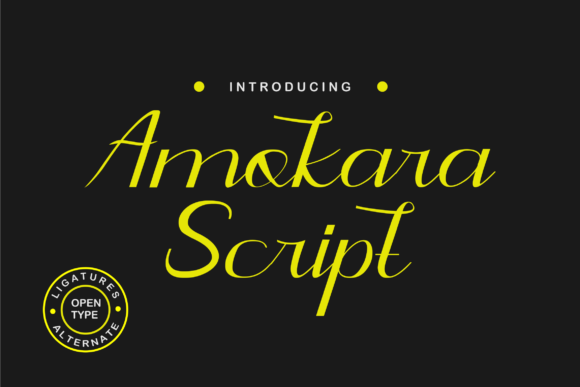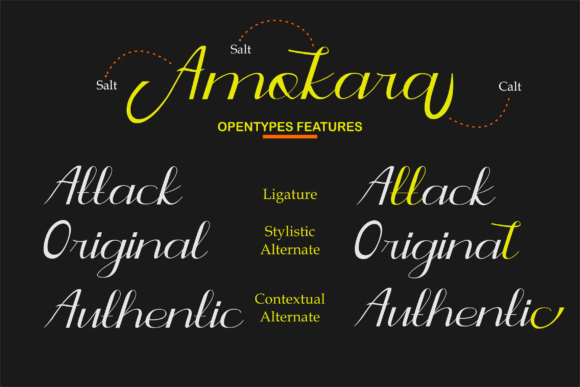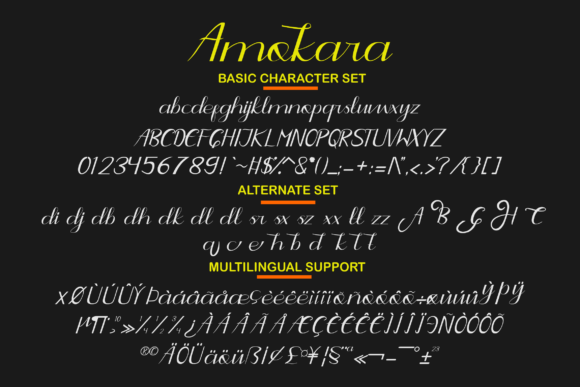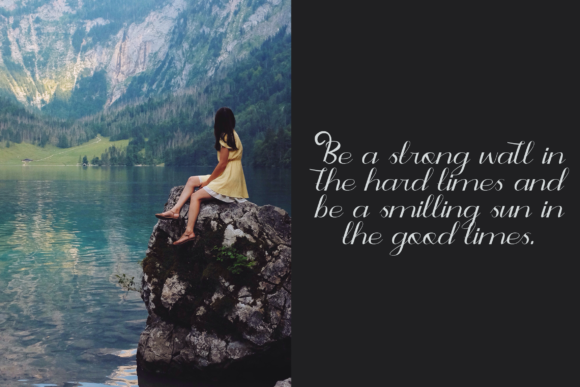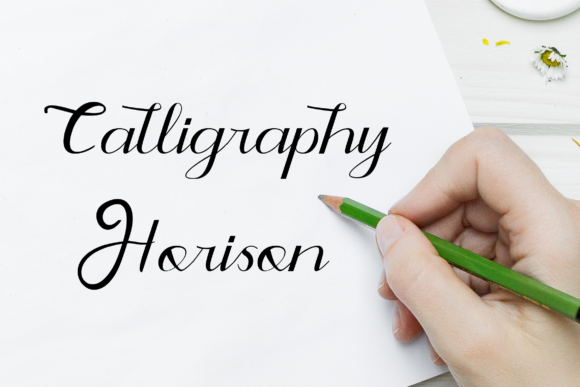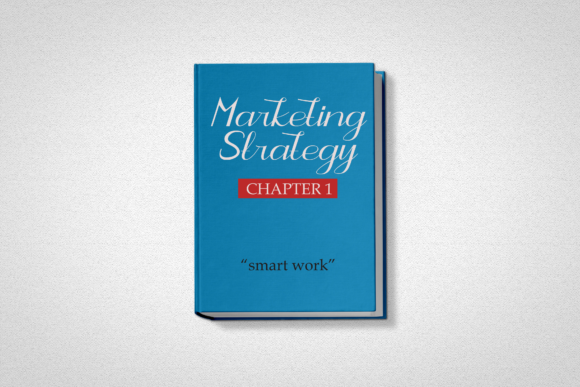
HomeScript FontsAmokara Script Font Script Fonts Amokara Script Font FacebookXPinterestWhatsApp Amokara Script Font Poster 2 Amokara Script Font Poster 3 Amokara Script Font Poster 4 Amokara Script Font Poster 5 Amokara Script Font Poster 6 About Amokara Script Font Amokara is a beautiful and fun handwritten font with an authentic spin. Get inspired by its unique feel! DOWNLOAD ON CREATIVE FABRICAThis font is sold and delivered by Creative Fabrica. Font Canyon may earn a commission if you buy through this link. People also explored Genius Font Sallmira Font Care Around Font Silloute Font Butterfly and Sunflower Font Ananta Font Lovely Haunting Font Christmas Vehicle Font Mini Heart Font 309 0 TagsAmokara Script Font Previous articleArianta Syahrini FontNext articleNazwa Font LEAVE A REPLY Cancel reply Comment: Please enter your comment! Name:* Please enter your name here Email:* You have entered an incorrect email address! Please enter your email address here Website: Save my name, email, and website in this browser for the next time I comment. Personal Use Free Cuttie Personal Use Free Read more about this font Gagalin Personal Use Free Read more about this font Bintang Noela Personal Use Free Read more about this font Cretino Personal Use Free Read more about this font BLOG Free Fonts Risk: Why Free Fonts Can Be Dangerous for Designers Free Fonts Risk: Why Free Fonts Can Be Dangerous for Designers Using free fonts is a common practice in web and graphic design. However, the... 5 Fonts That Will Dominate Design Trends in 2026 Free vs Paid Fonts: Why Investing in Premium Fonts Is Worth It Exploring Font Trends